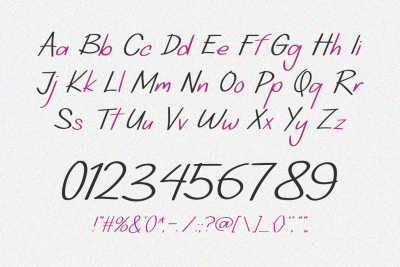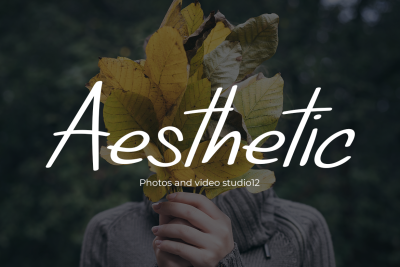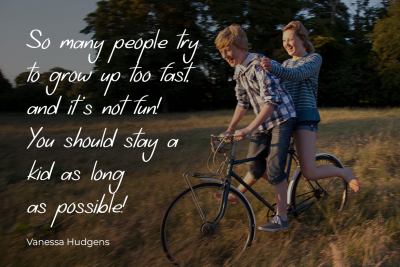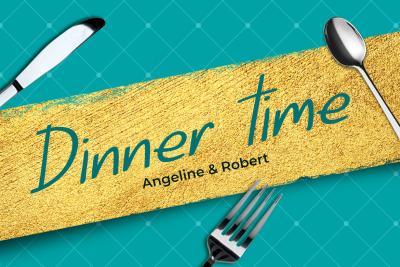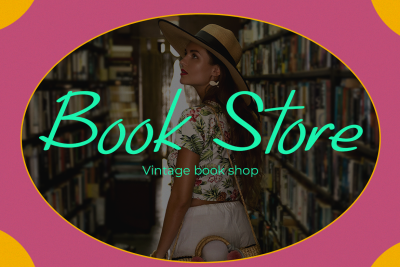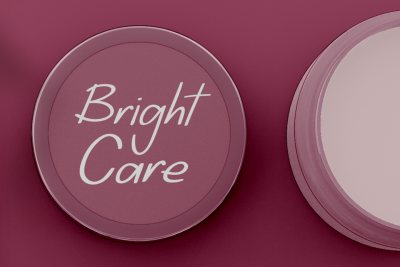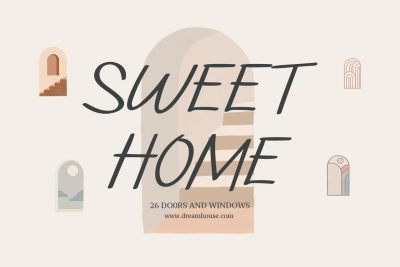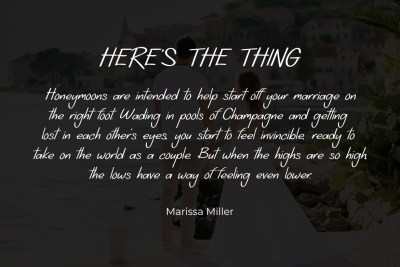
Handwriting Font SHABUGA is a stylish and expressive typeface. It brings a personal and artistic touch to any creative project. With fluid strokes and a natural handwritten look, SHABUGA captures casual elegance while staying readable and versatile. Therefore, this font is perfect for those seeking a dynamic yet sophisticated style that blends into various design aesthetics.
Each letter flows naturally, creating an effortless feel that mimics real handwriting. Moreover, the balance of bold strokes and delicate curves adds authenticity and warmth. Whether you’re working on branding, social media content, or personal projects, SHABUGA ensures your design feels personal and creative.
Additionally, SHABUGA adapts well and pairs with different fonts to enhance visual impact. As a result, its refined yet relaxed look makes it great for both formal and informal designs. You can use it for quotes, invitations, product packaging, or website headlines. Consequently, this font stands out while remaining inviting and engaging.
Who is Handwriting Font SHABUGA For?
SHABUGA is ideal for designers, entrepreneurs, and creatives wanting a personal touch in their projects. This font suits:
- Lifestyle Bloggers & Content Creators: Enhance social media posts, Instagram captions, and Pinterest graphics with a unique handwritten touch, making content more engaging.
- Branding & Logo Designers: Perfect for boutique brands, fashion labels, and artisan businesses seeking an elegant yet informal identity. Furthermore, its stylish appearance helps create a lasting impression.
- Wedding & Event Planners: Great for invitations, place cards, and event signage that need a handwritten, personal feel. Thus, it adds an elegant and charming element to any event.
- Creative Entrepreneurs: Ideal for Etsy shop banners, product labels, or stylish packaging. Since SHABUGA adds an organic and inviting brand presence, it ensures customer connection.
- DIY Crafters & Printable Creators: Suitable for planners, greeting cards, scrapbooks, and other printable designs needing a charming, handcrafted look. Ultimately, it makes any creative project feel more personal and visually appealing.
No matter your creative field, Handwriting Font SHABUGA brings an artistic and expressive touch to designs. Moreover, its balance of fluidity and structure makes it versatile and timeless. Whether for branding or personal projects, SHABUGA adds warmth and personality to any design, making it an excellent choice for those seeking elegance with a handcrafted appeal.